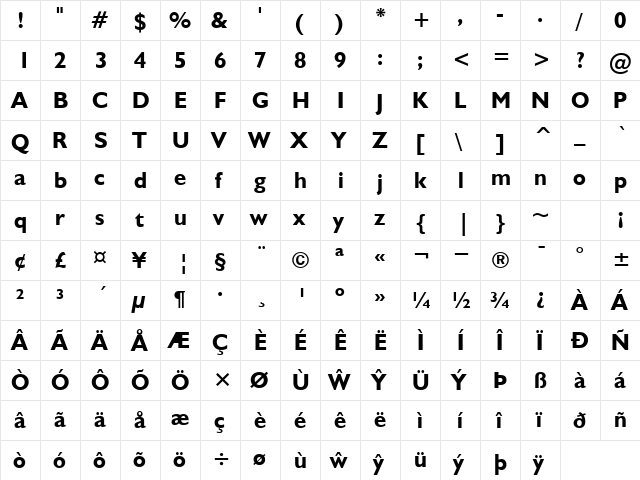
NRB Welsh Gillian Bold
Design Context for NRB Welsh Gillian Typeface
NRB Welsh Gillian is a composed and adaptable typeface that performs quietly and consistently across a wide range of design contexts. Its bold stroke weight gives it real presence on the page.